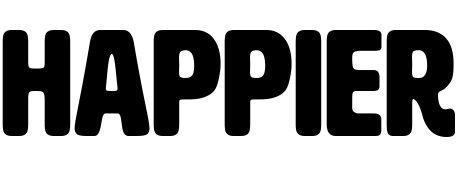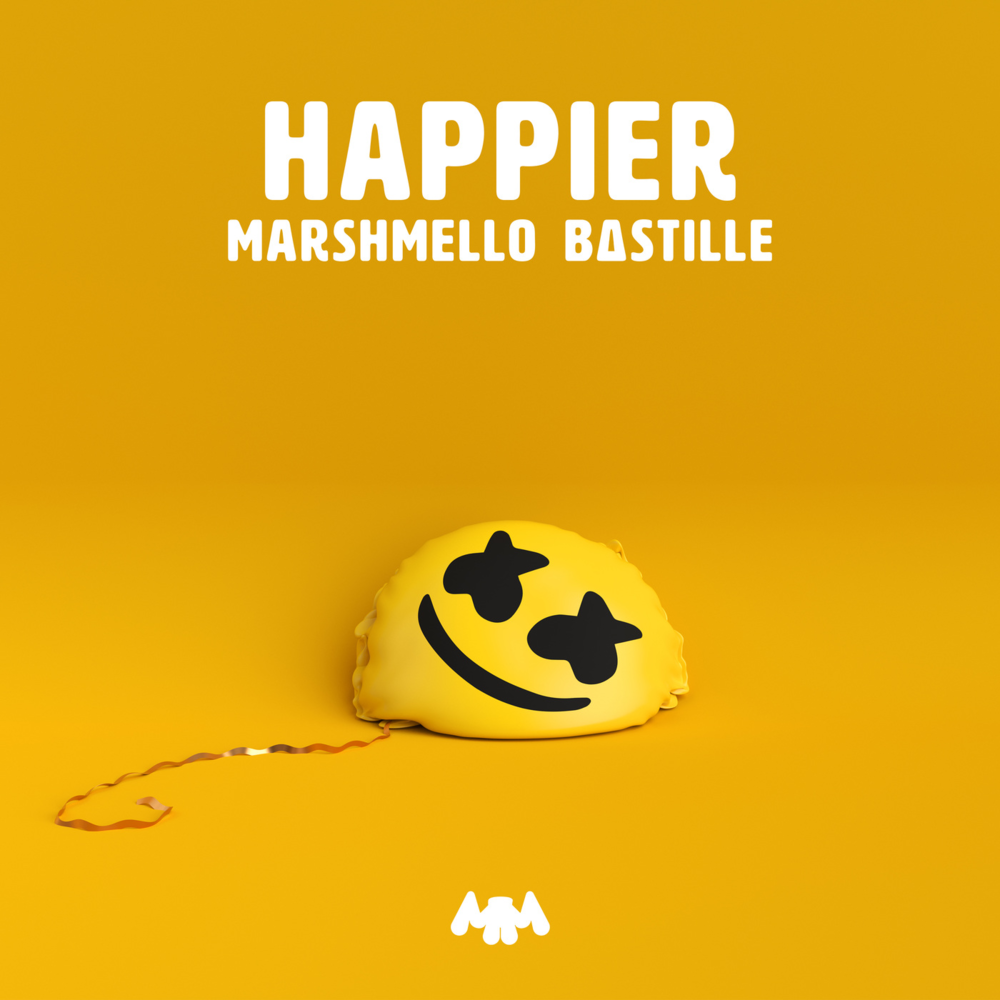
Happier Font
Fonts in UseHappier is a single released by Astralwerks in 2018, featuring American music producer Marshmello and British band Bastille.
The "Happier" single cover features Artz, a rounded display font by Erik Spiekermann of Hamilton Wood Type Foundry, reminiscent of early 20th-century European posters. The "MM" monogram at the bottom was possibly designed with Gretoon by Måns Grebäck, which is available for free download in the Fonts Used Section.